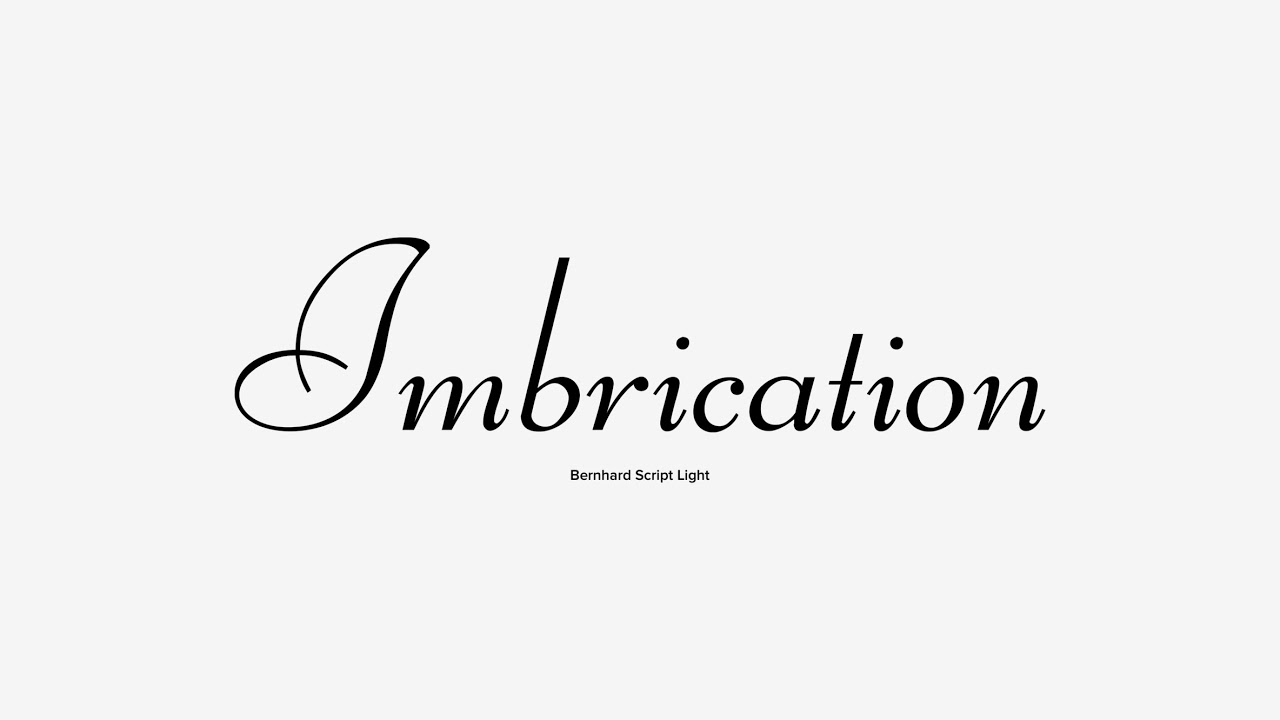
Bernhard Script Font Youworkforthem Script Wedding Invitation Bernhard script, designed by lucian bernhard in the late 1920s for bauersche gießerei, brings classic sophistication to contemporary typography. this typeface combines german craftsmanship with a french influenced elegance, creating a unique, non connecting script ideal for refined design projects. This elegant script font features flowing, cursive letterforms with a classic and sophisticated appearance. the characters are intricately designed with smooth curves and delicate strokes, giving it a refined and artistic look.
Bernhard Font Youworkforthem Discover the timeless elegance of bernhard script, a french influenced non connecting script meticulously revived by ralph m. unger for a modern touch. Information about the font bernhard script from profonts, and where to download it. Bernhard script | this font was created by ralph m. unger and released through profonts. the font family includes 2 unique styles and different package options. Discover the timeless elegance of bernhard script, a french influenced non connecting script meticulously revived by ralph m. unger for a modern touch. Bernhard script (schonschrift) was originally designed by german designer lucian bernhard in 1925 1928 for bauersche gießerei in frankfurt. it is a french influenced non connecting script with a small x height and resultingly large descenders. A revival of bernhard schönschrift kräftig, designed by lucian bernhard and originally published by bauer type foundry in 1928.
Bernhard Gothic Font Youworkforthem Bernhard script | this font was created by ralph m. unger and released through profonts. the font family includes 2 unique styles and different package options. Discover the timeless elegance of bernhard script, a french influenced non connecting script meticulously revived by ralph m. unger for a modern touch. Bernhard script (schonschrift) was originally designed by german designer lucian bernhard in 1925 1928 for bauersche gießerei in frankfurt. it is a french influenced non connecting script with a small x height and resultingly large descenders. A revival of bernhard schönschrift kräftig, designed by lucian bernhard and originally published by bauer type foundry in 1928.
Bernhard Font Youworkforthem Bernhard script (schonschrift) was originally designed by german designer lucian bernhard in 1925 1928 for bauersche gießerei in frankfurt. it is a french influenced non connecting script with a small x height and resultingly large descenders. A revival of bernhard schönschrift kräftig, designed by lucian bernhard and originally published by bauer type foundry in 1928.